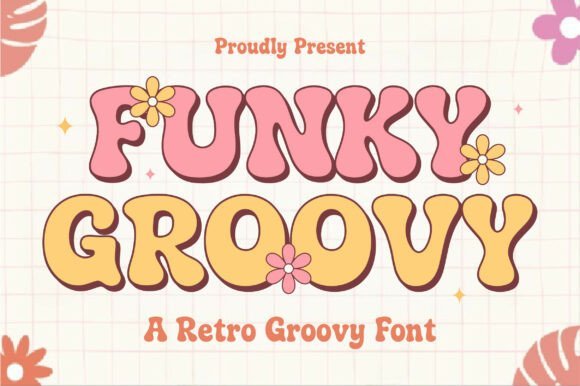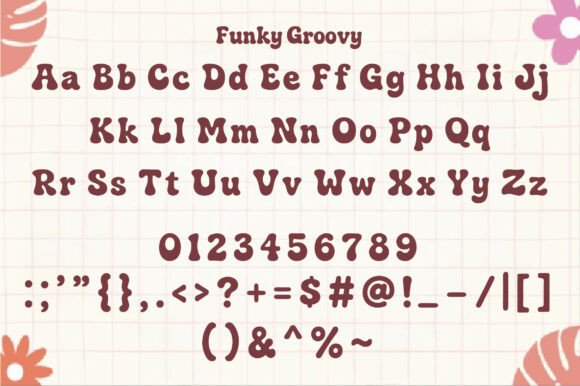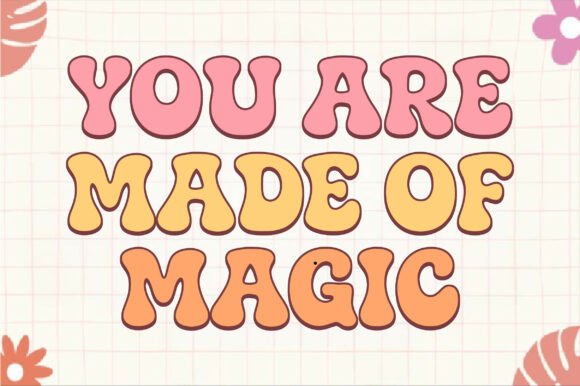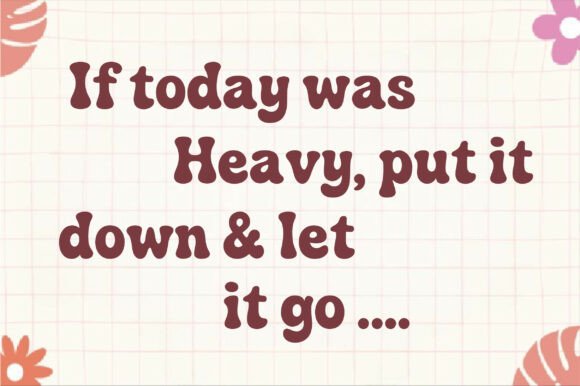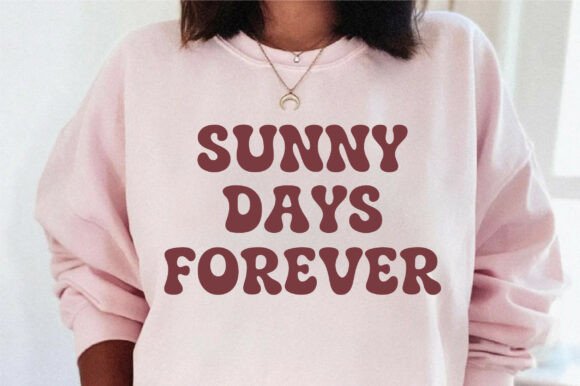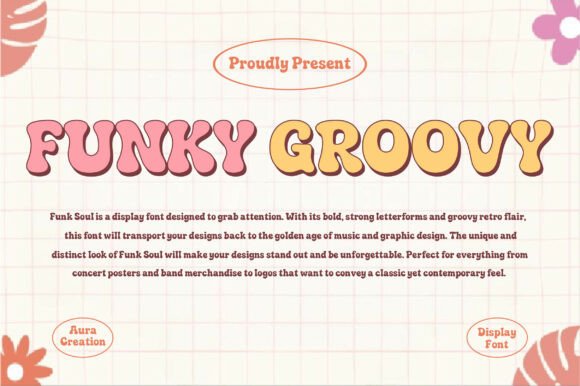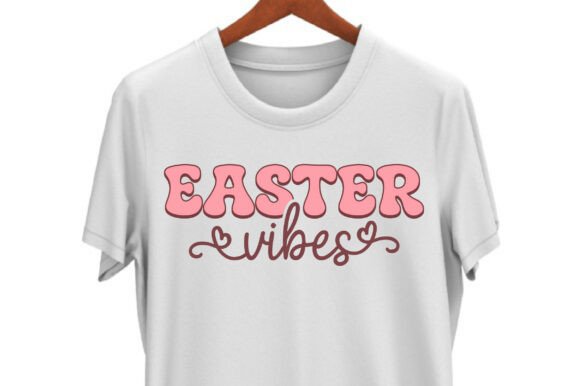
Get Ready to Groove with Your Designs
Remember that moment when you stumbled upon the perfect font that made your design pop? For many of us, that moment is a creative high like no other. You’re browsing through font collections, scrolling through your favorite design websites, and suddenly, you land on the perfect combination of style and personality. That’s exactly what happens when you discover the Funky Groovy Font – a bold, retro display font that’s bursting with bubbly curves and playful charm.
Whether you’re working on eye-catching posters, kids’ designs, stickers, or branding projects, the Funky Groovy Font is the perfect companion for your creative endeavors. Its chunky letterforms and groovy 70s-inspired style make it a valuable addition to any designer’s toolkit, adding a dash of fun and whimsy to even the most mundane projects.
Funky Groovy Font Key Features
- Unique Characteristic: Funky Groovy Font features a unique blend of 1970s-inspired psychedelic and retro-futuristic elements, making it perfect for designs that need a nostalgic touch
Funky Groovy Font Review
I have to say, I was really excited to dive into the Funky Groovy Font, and overall, I’m not disappointed. ✨ The font’s playful, retro vibe is perfect for projects that need a dash of fun and nostalgia. It’s great for use in advertising, social media graphics, and even editorial design. The font is also highly legible, making it a solid choice for body text.
However, I do have some reservations. ⚠️ For one, the font’s character set is limited, which can make it tricky to use for projects that require a wide range of languages or special characters. Additionally, the font’s bold and italic styles can sometimes feel a bit too… bold. I’ve found that using them in conjunction with regular text can create a visual overload.
- Playful, retro vibe
- Highly legible
- Perfect for advertising, social media graphics, and editorial design
Overall, I’d say the Funky Groovy Font is a solid choice for designers looking to add some personality to their projects. While it has some limitations, its unique style and legibility make it a great addition to any design toolkit.
For optimal results, use Funky Groovy Font in conjunction with bold, bright colors to create eye-catching graphics.
– Retro-themed posters and flyers
– Music festival and concert promotions
– Social media graphics and advertisements
– Vintage-style branding and logos